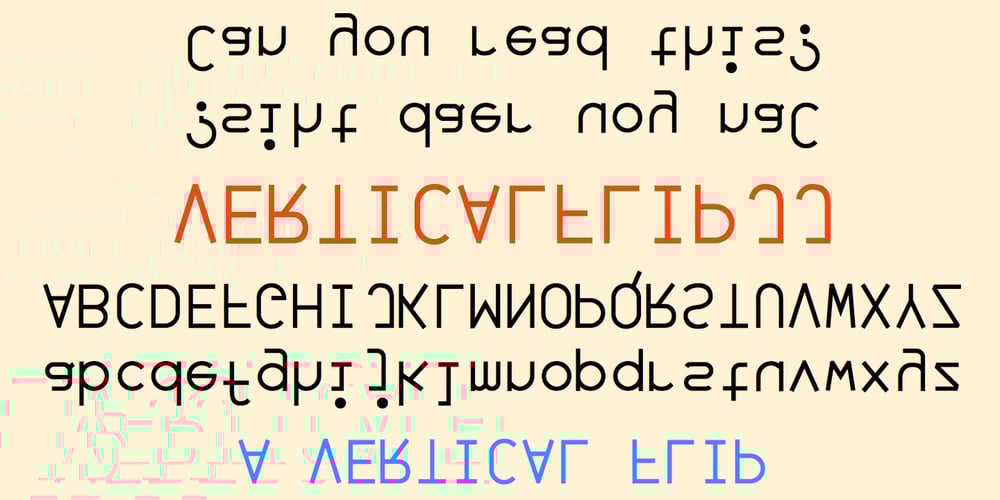
VerticalFlipJJ
VerticalFlipJJ font
VerticalFlipJJ Font Family was designed by Robert Schenk and published by Ingrimayne Type. VerticalFlipJJ contains 1 styles and family package options. Many years ago I created two upside-down typefaces, UpsidedownJJ and UpsidedownTOC. They were based on monospaced or typewriter fonts, and were rotated 180 degrees, which is the same as a vertical flip followed by a horizontal flip. Recently I was reminded that this way of creating an upside-down typeface is not the only way to create an upside-down typeface–a simple vertical flip creates a different one. That is what this typeface is, a simple vertical flip. The original typeface on which this one is based is JetJaneMono.